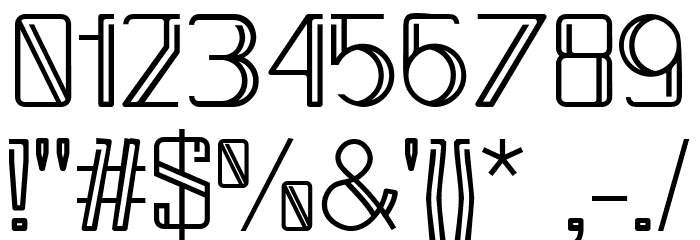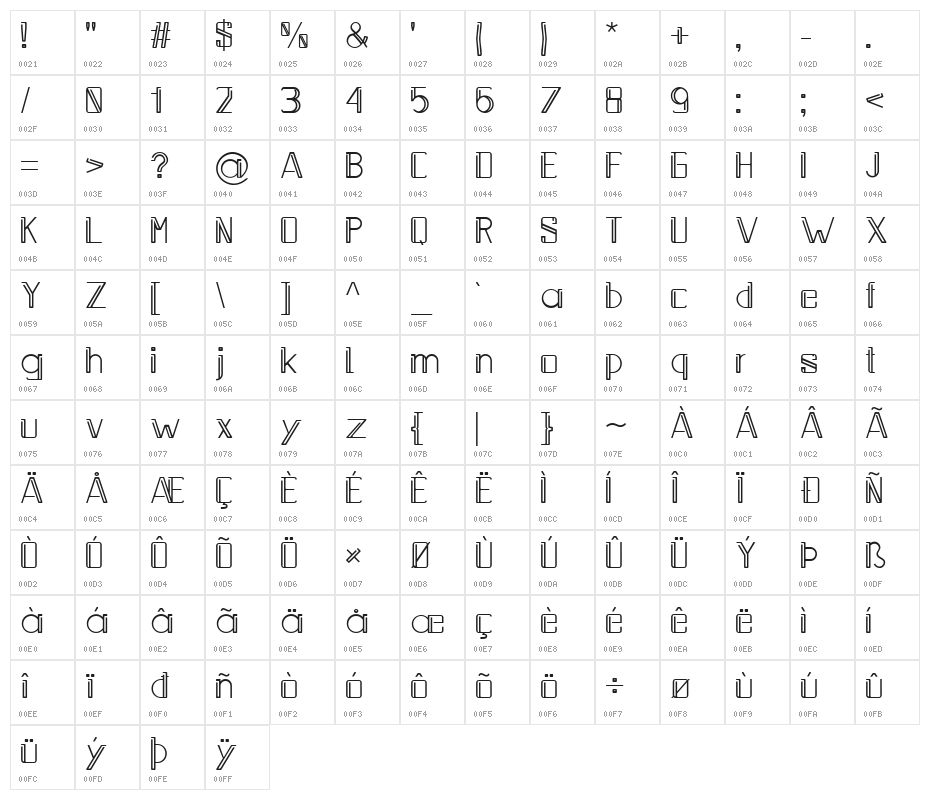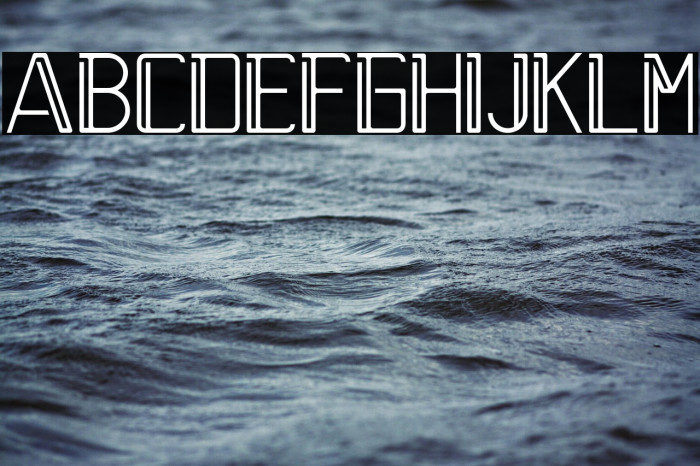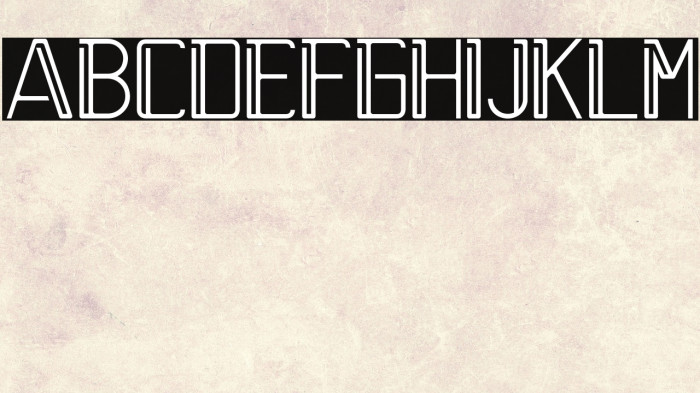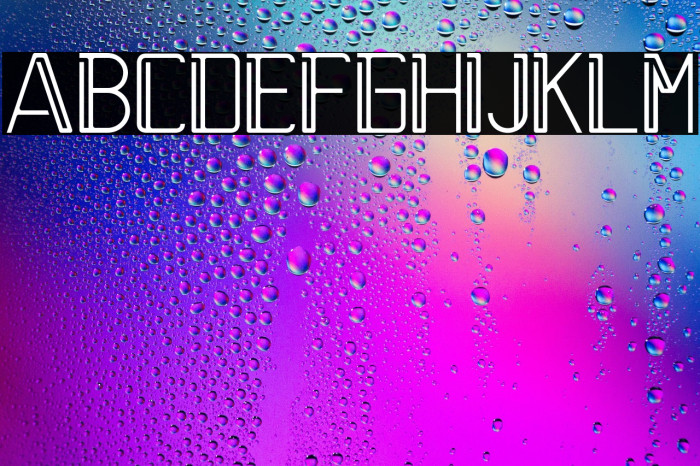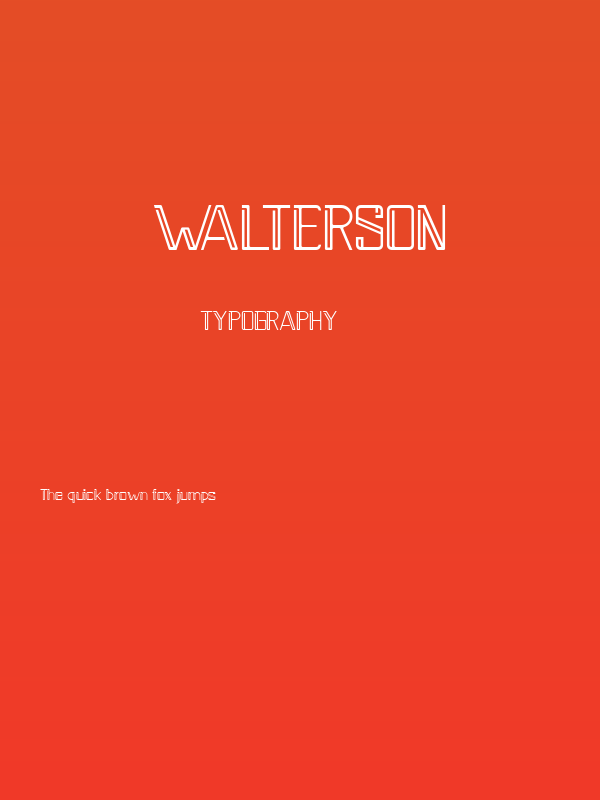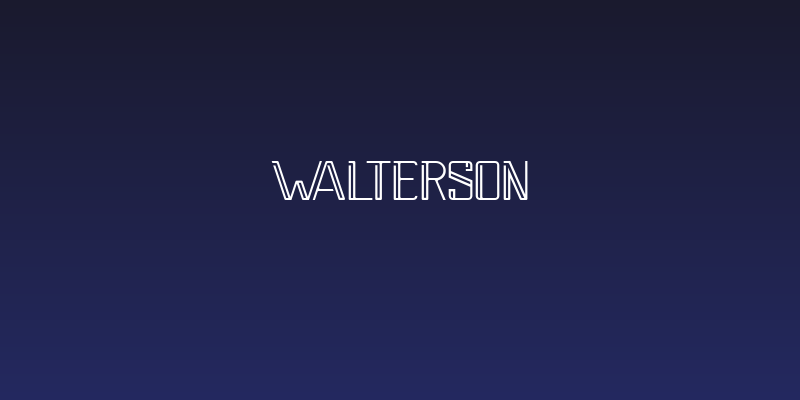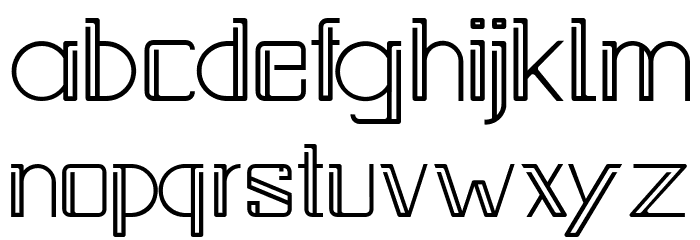
This font features a unique, geometric design with a modern and futuristic appeal. The characters are constructed with clean, straight lines and sharp angles, giving them a technical and precise appearance. The uppercase and lowercase letters maintain a consistent height, while the numerals and special characters follow the same structured aesthetic. The font's open and airy design is achieved through its hollow, outlined style, which adds a sense of lightness and sophistication. This font is ideal for projects that require a contemporary and innovative look, such as technology branding, modern art displays, or digital interfaces.